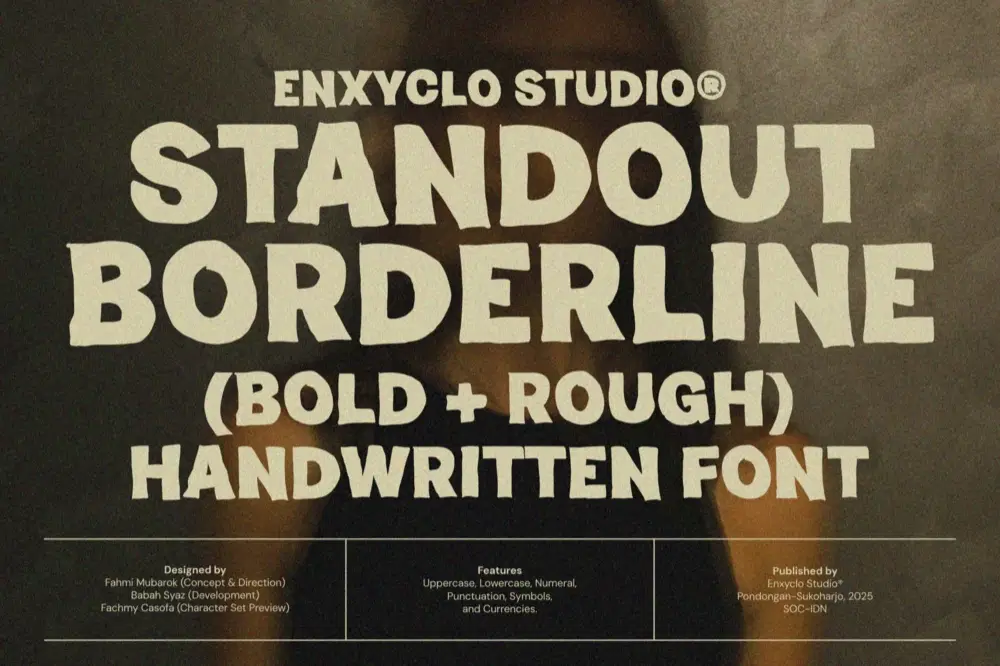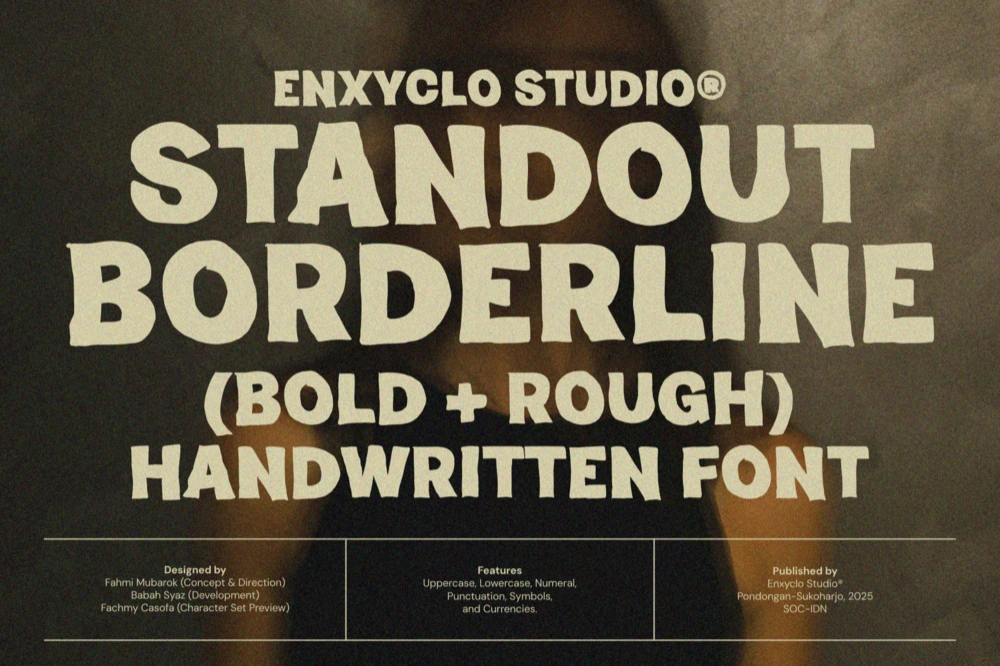
Standout Borderline is a bold handwritten font with a rough texture and classic vintage vibe, designed to make every word feel authentic and timeless. It combines raw hand-drawn energy with a calm, aesthetic balance, creating a perfect harmony between old-school charm and modern branding appeal. Each letter carries a handcrafted imperfection that gives your design a warm, personal touch. Whether used for logos, packaging, or editorial titles, Standout Borderline brings character, texture, and attitude, a subtle nod to retro craftsmanship wrapped in a modern aesthetic. Perfect for brands that seek both strength and softness, Standout Borderline turns simplicity into style and calmness into confidence.
- Uppercase letters
- Lowercase letters
- Punctuation marks
- Symbol set
- Currency symbols
PERFECT FOR
- Modern and vintage branding
- Logo design and packaging
- Posters and promotional materials
- Café and boutique branding
- Editorial and magazine headlines
- Handmade product labels
- Quote art and wall decor
- Lifestyle blogs and creative websites
- Retro or aesthetic-themed projects